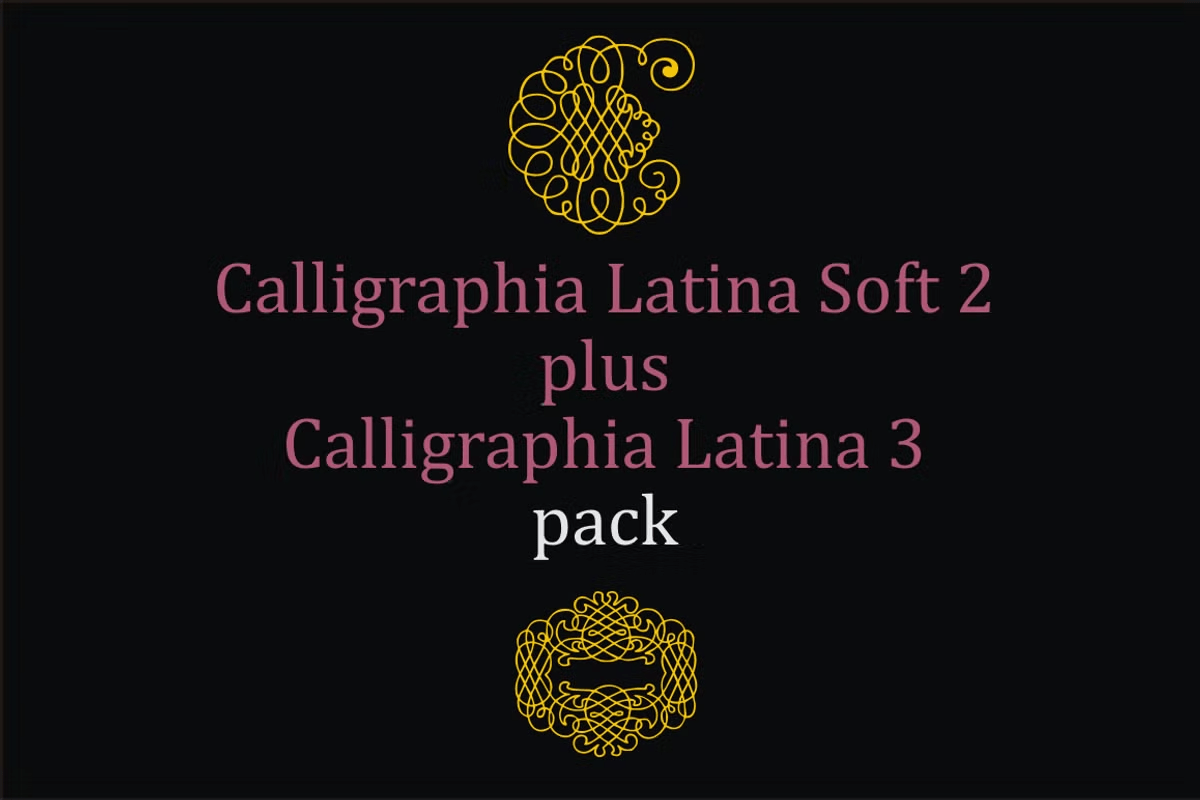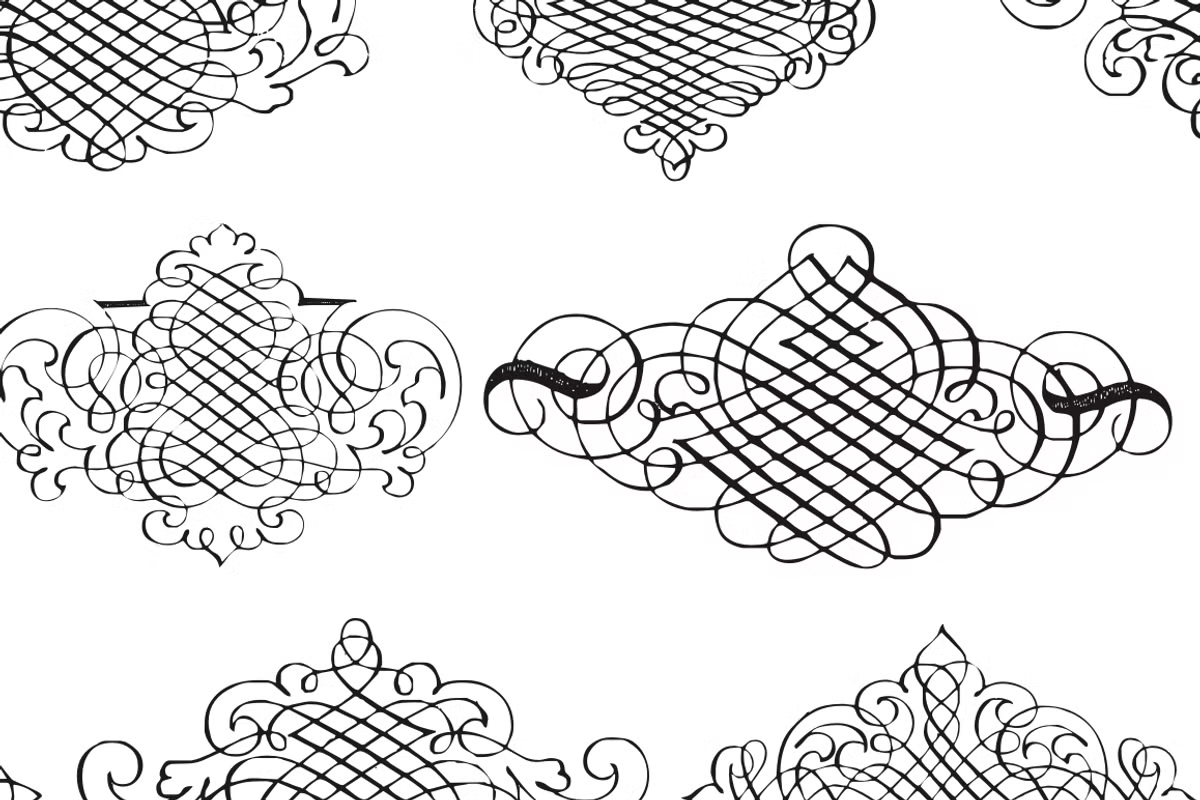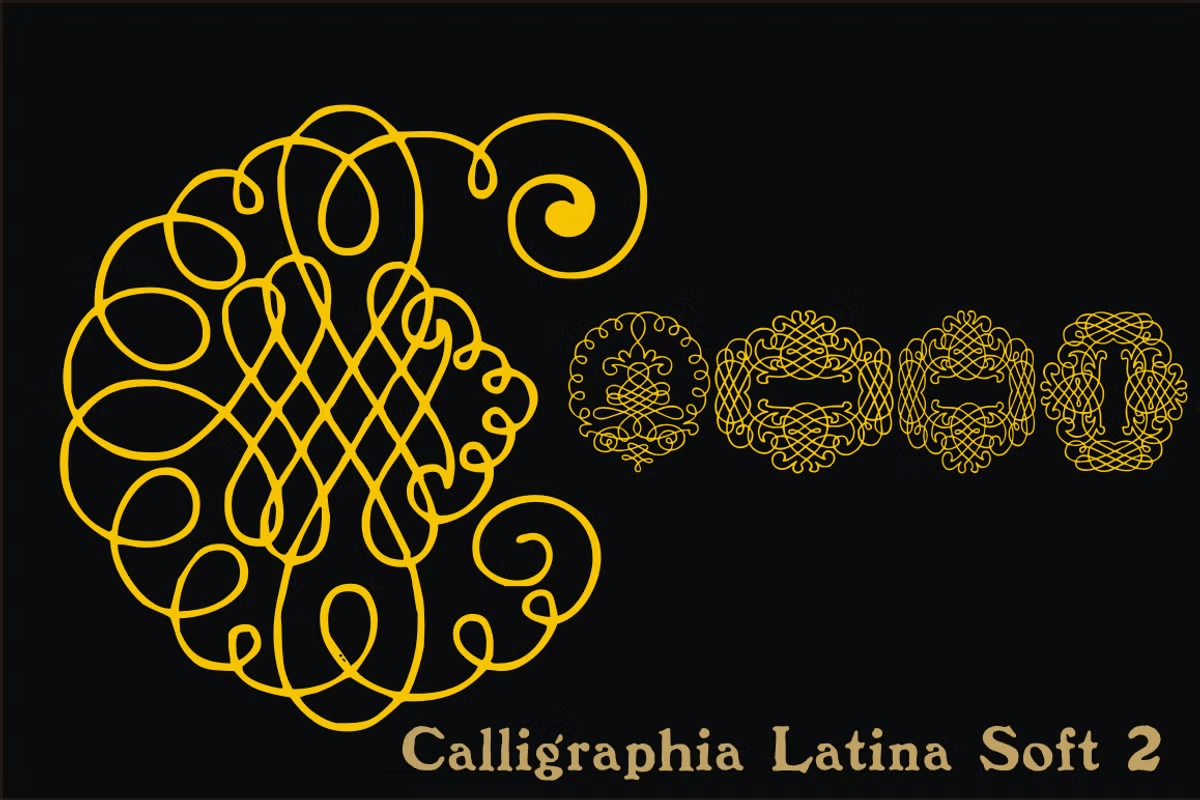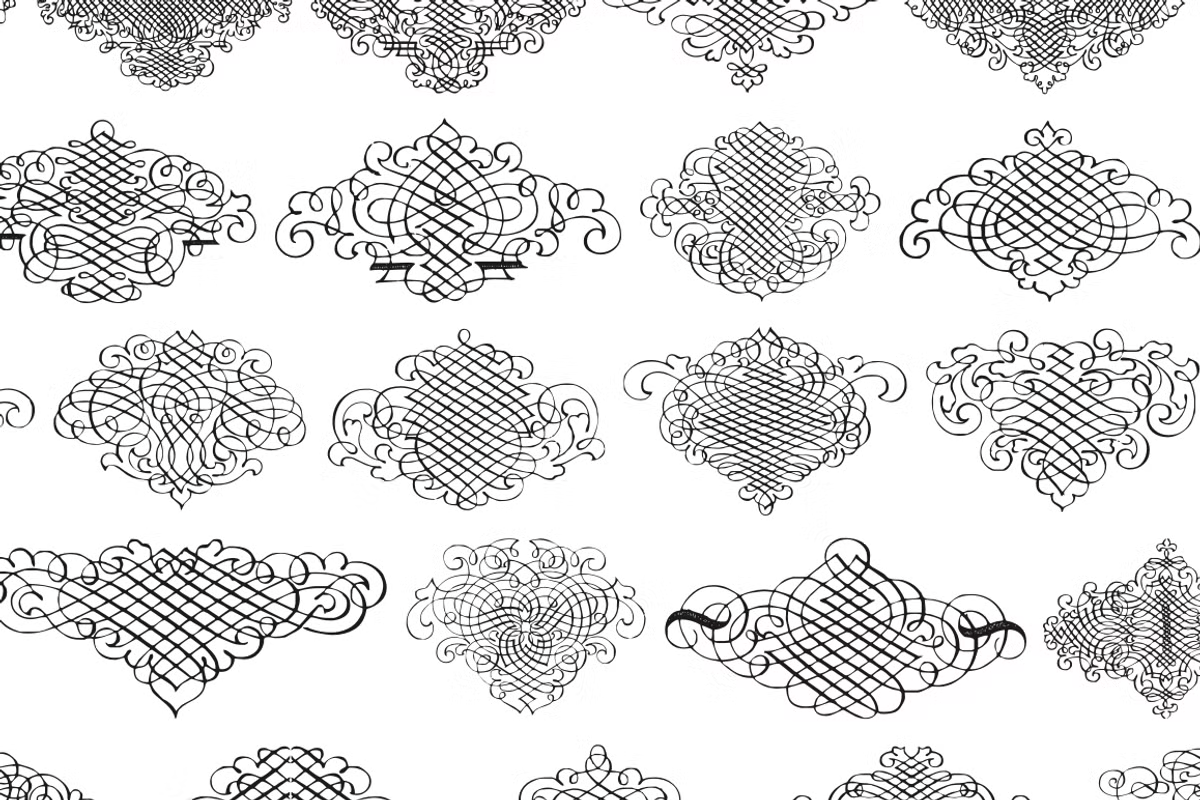
Calligraphia Latina Pack
Font Family by Intellecta Design
One of the most successful worldwide ornament fonts is CalligraphiaLatina. It is part of a trend that's been quite popular lately: messed-up calligraphy. You can dirty up (or deconstruct) gracious classic-looking curves in many ways: using a variety of software filters; by superimposition: or even by hand. The result works well when you want that worn-down grungy look. CalligraphiaLatina is a worldwide best-seller from IntellectaDesign, a family of many fonts.